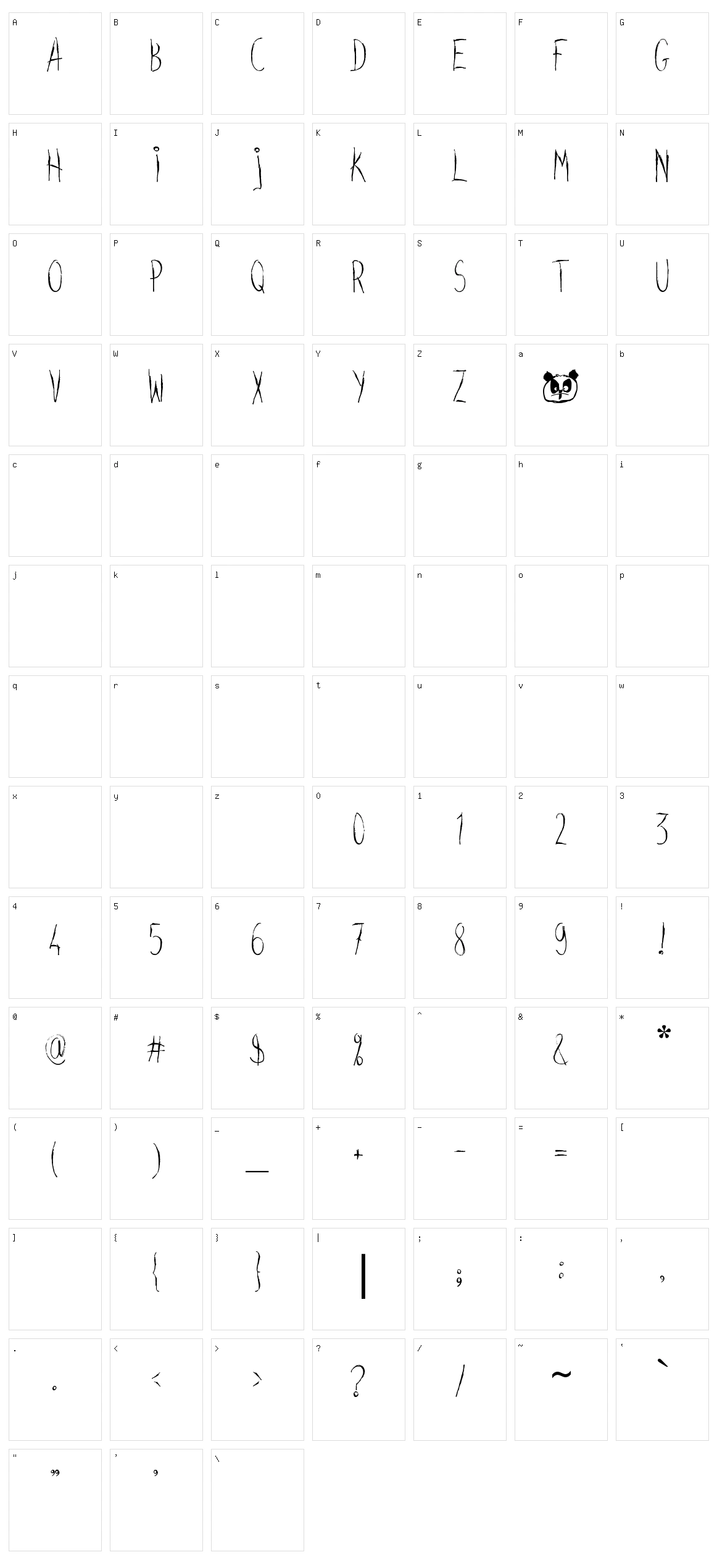
The free font Screamyhand is carefully designed by MadPandaFonts, showcasing a thoughtful balance of creativity and usability and falls under the Trash font style. When you download the ZIP file, it contains only 43.34 KB of font files, making it lightweight and quick to download. Please review the license details below to understand permitted usage and distribution rights. If license information is not available, we recommend using this font for personal projects only or contacting the author directly for commercial usage permissions.